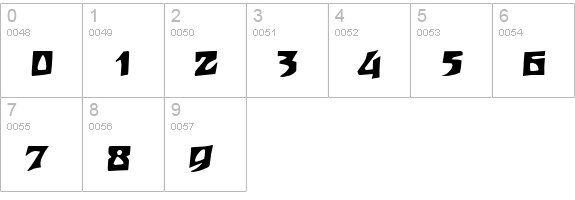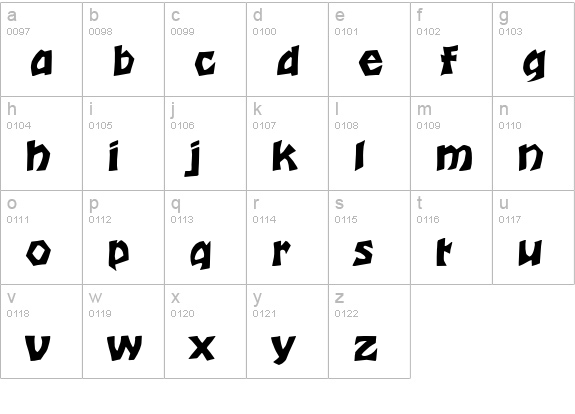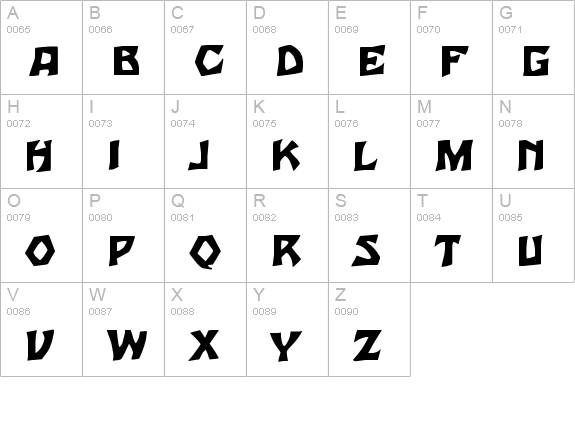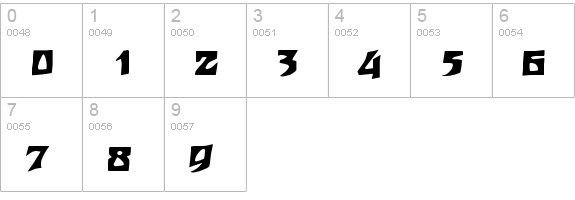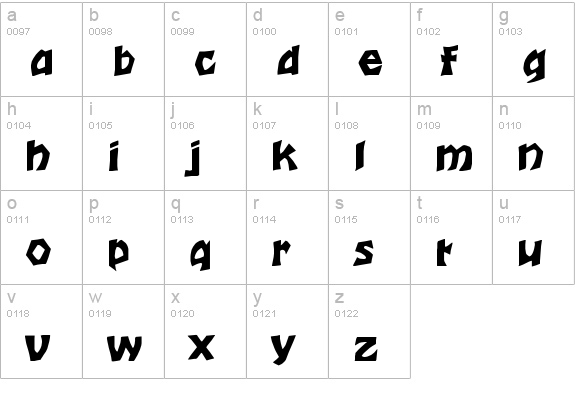
Romulan Regular Font Details
Romulan Regular is the standard, neutral variant in the Romulan typeface family \xE2\x80\x94 well suited to general body text, paragraphs, and standard typographic work.
Romulan Regular font is a sleek and stylish typeface that exudes elegance and sophistication. With its sharp lines and modern aesthetic, this font is perfect for creating professional and eye-catching designs. The Romulan Regular font is versatile and can be used for a variety of projects, from branding to editorial design. The best part about Romulan Regular font is that it is free to download at FontsMarket.com. Whether you're a designer looking to add a new font to your collection or a business owner in need of a fresh look for your marketing materials, this font is sure to impress. Don't miss out on the opportunity to elevate your design projects with the Romulan Regular font today!